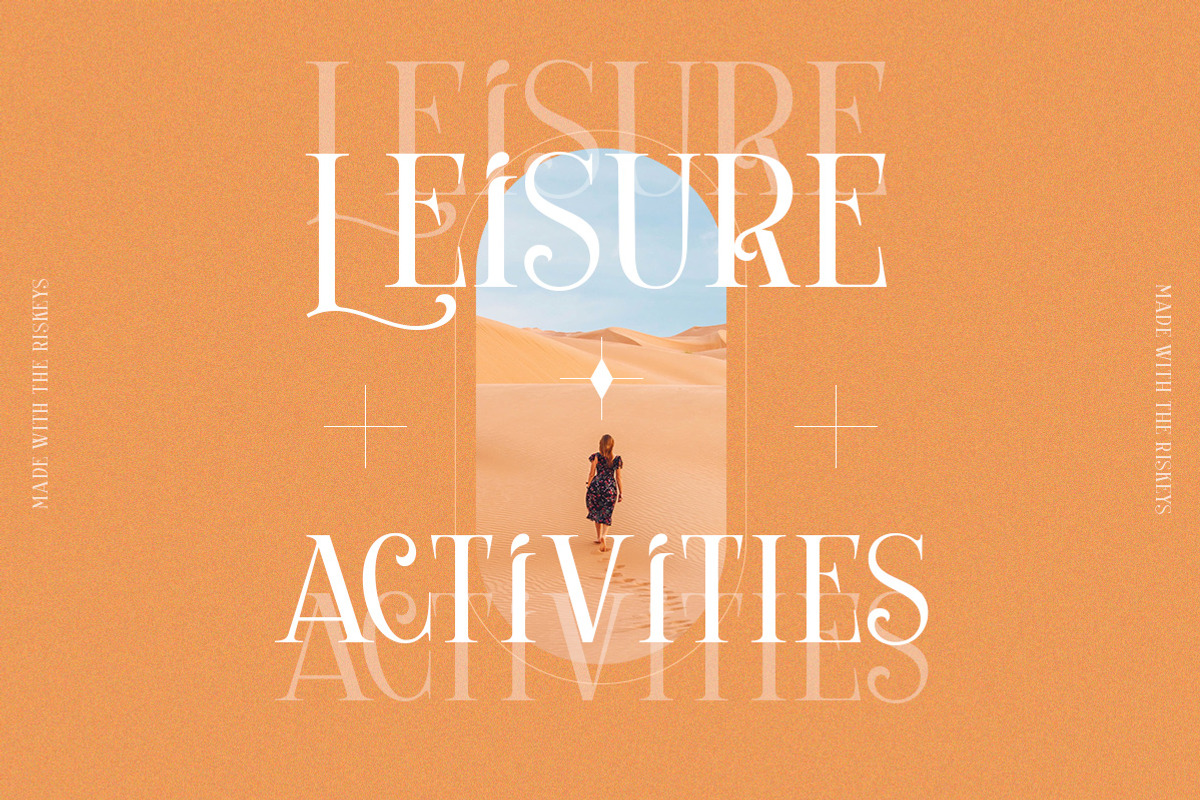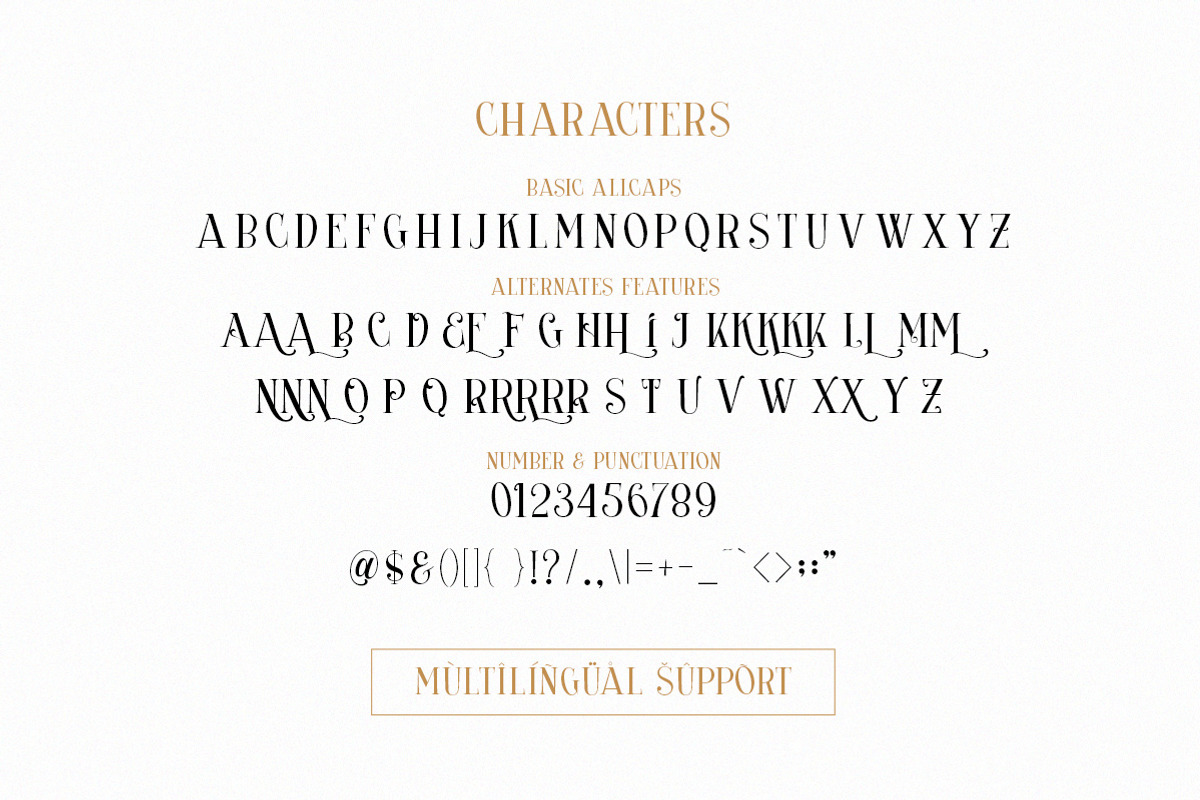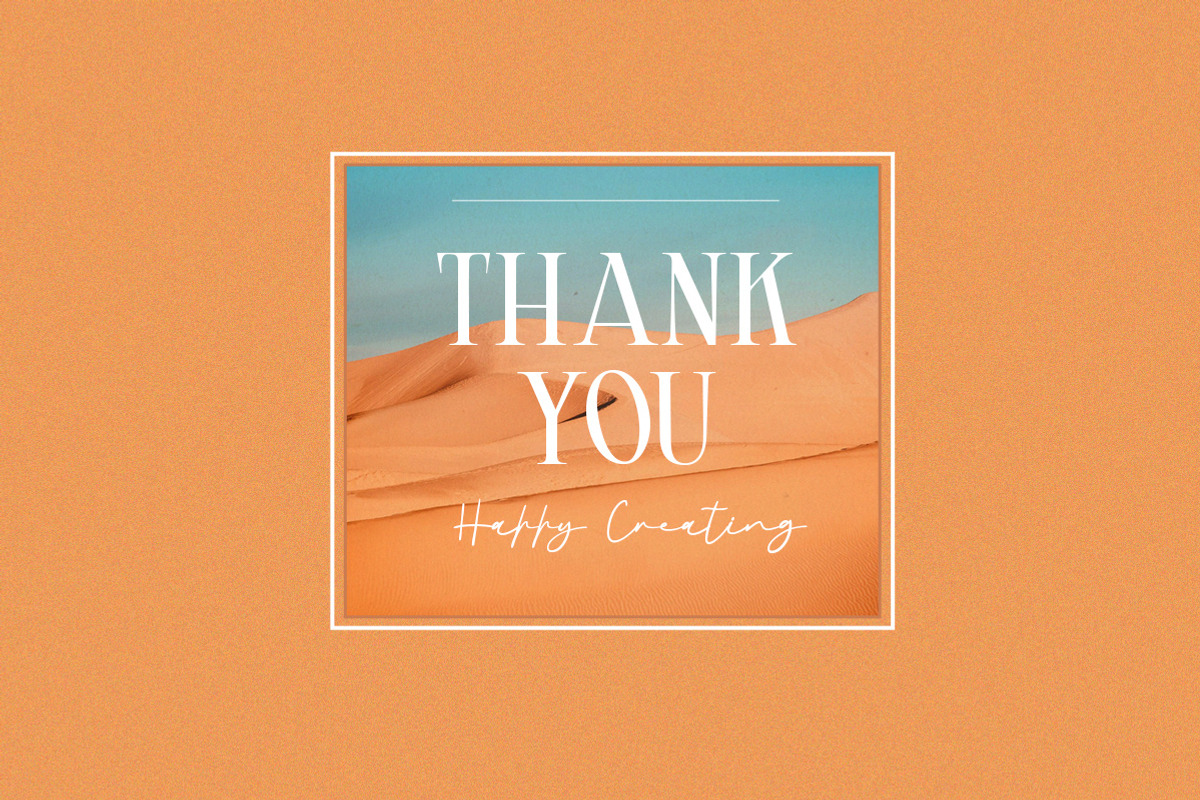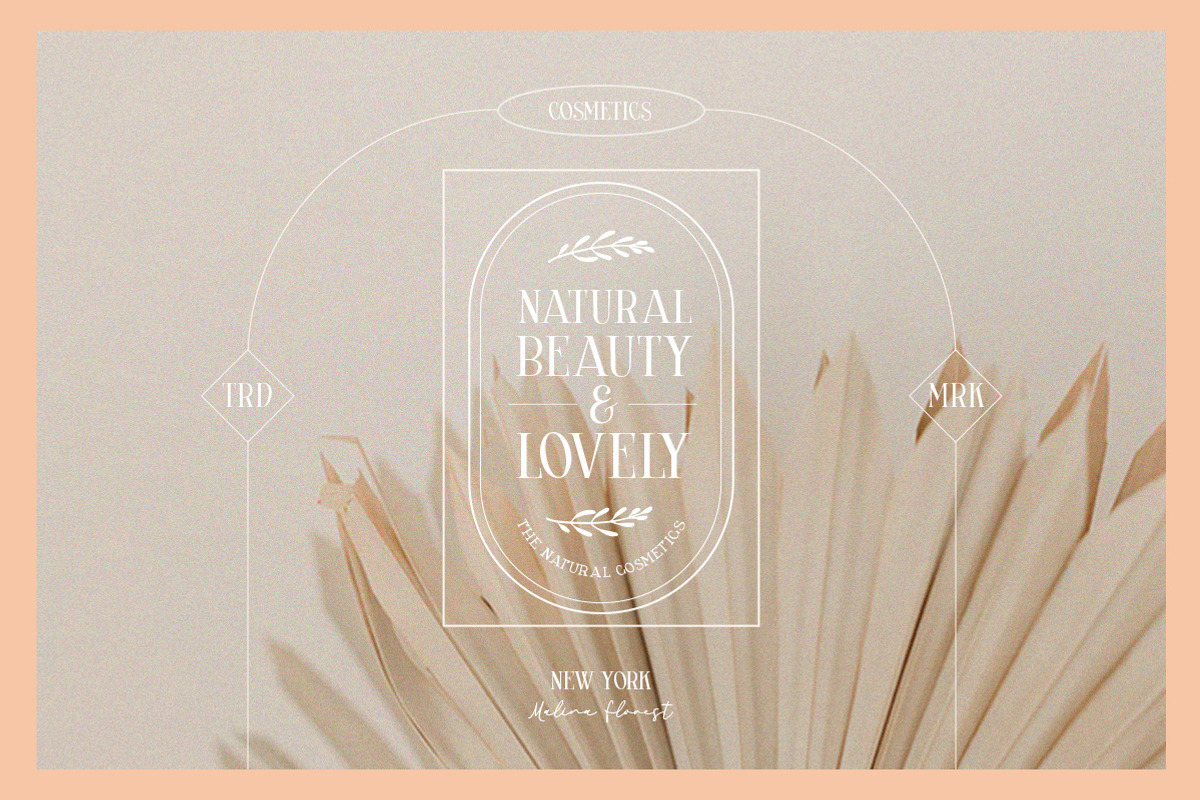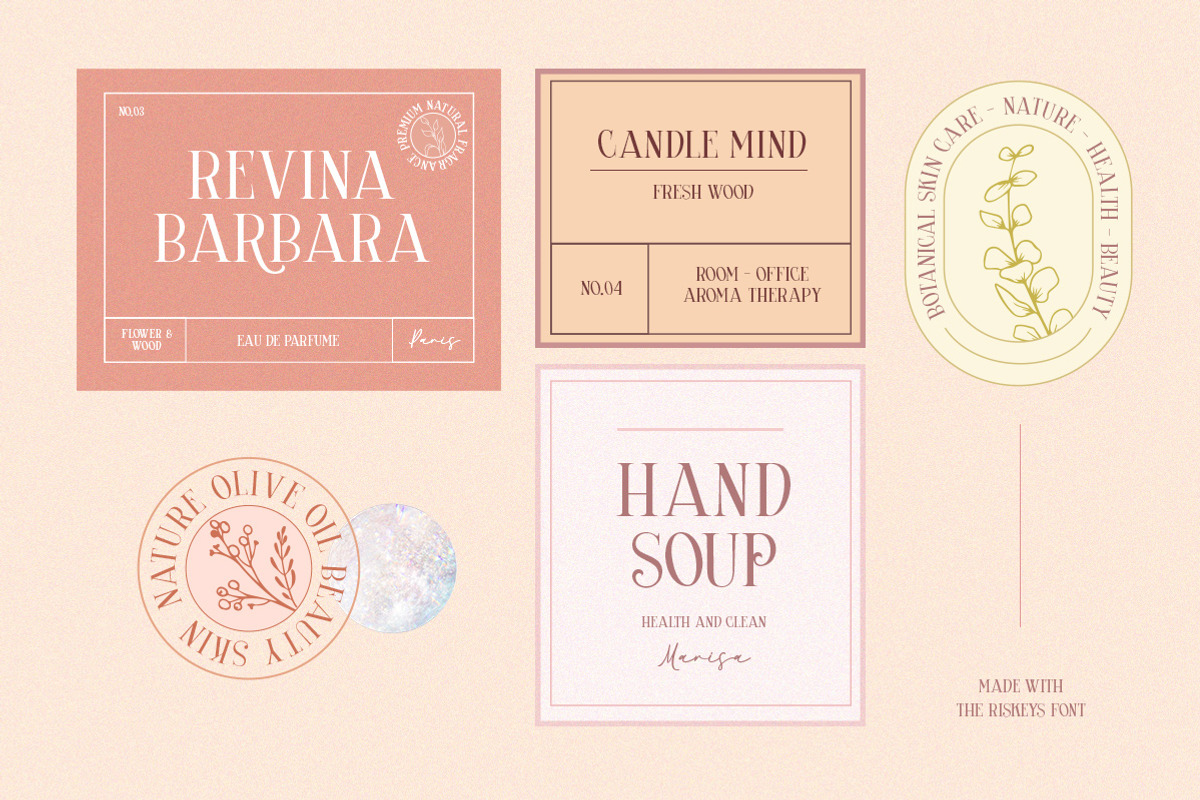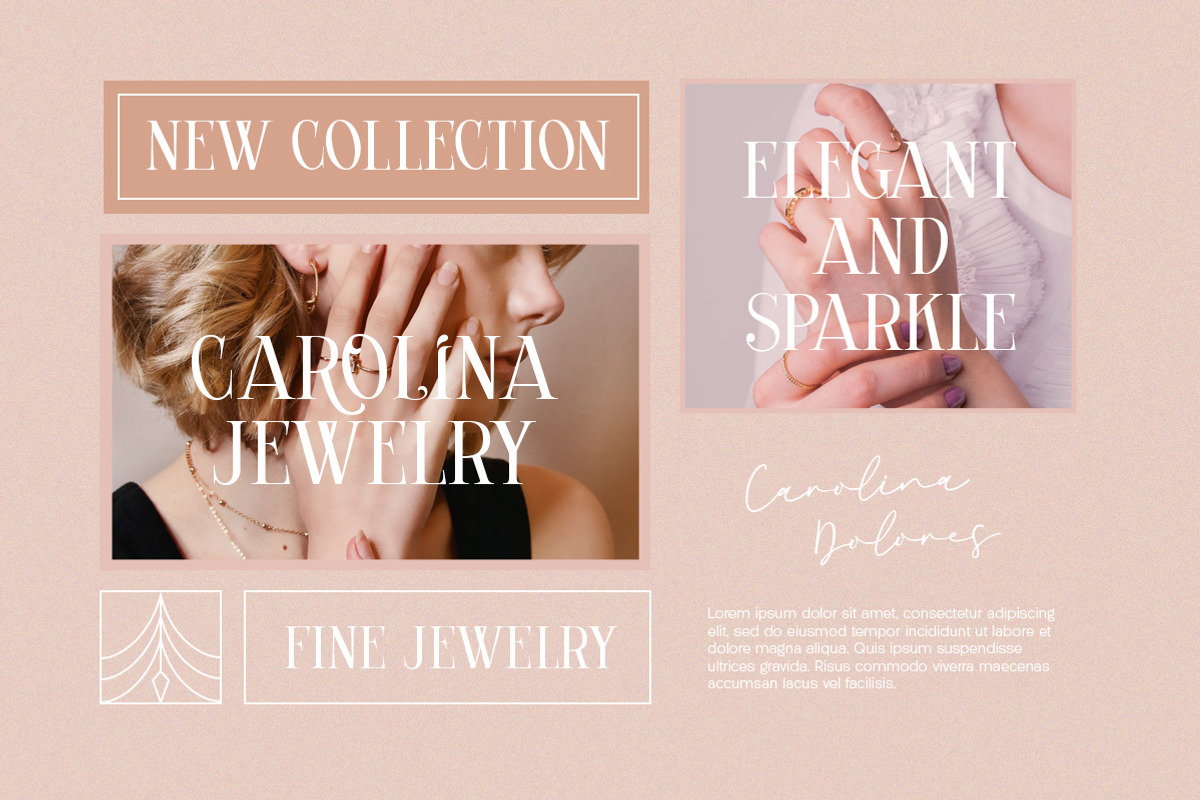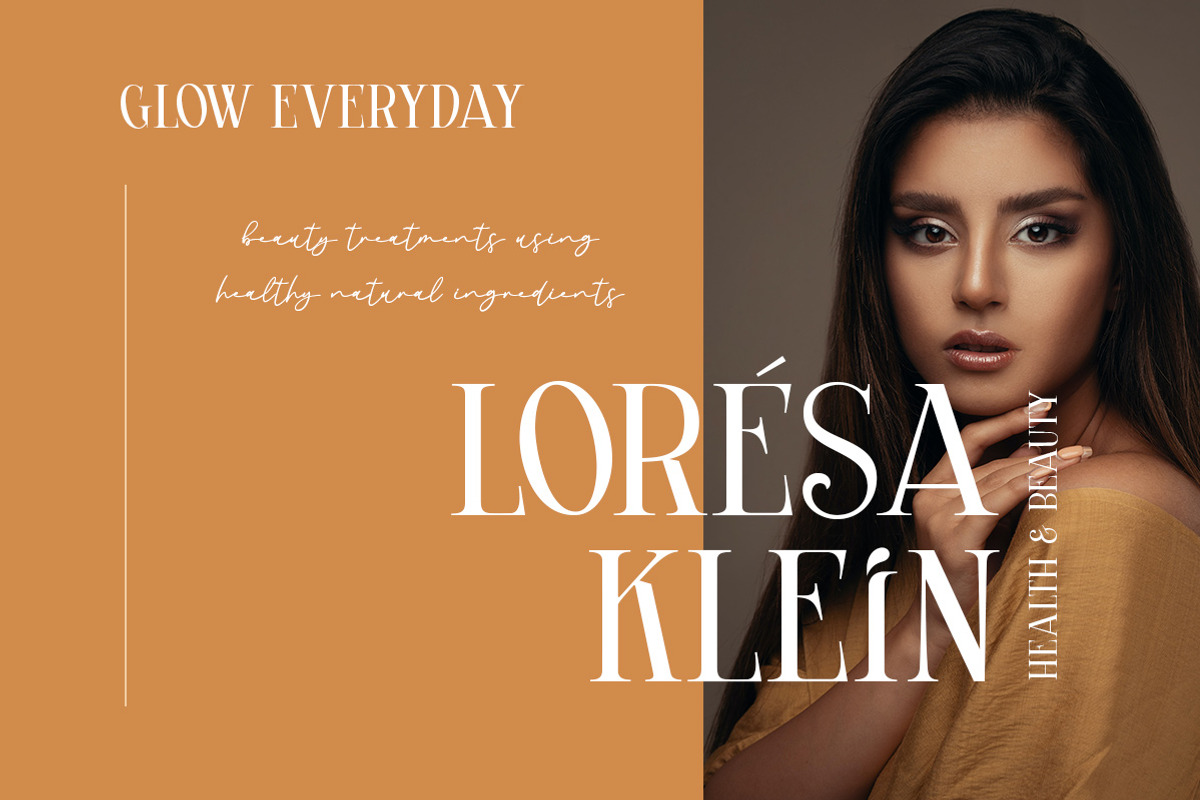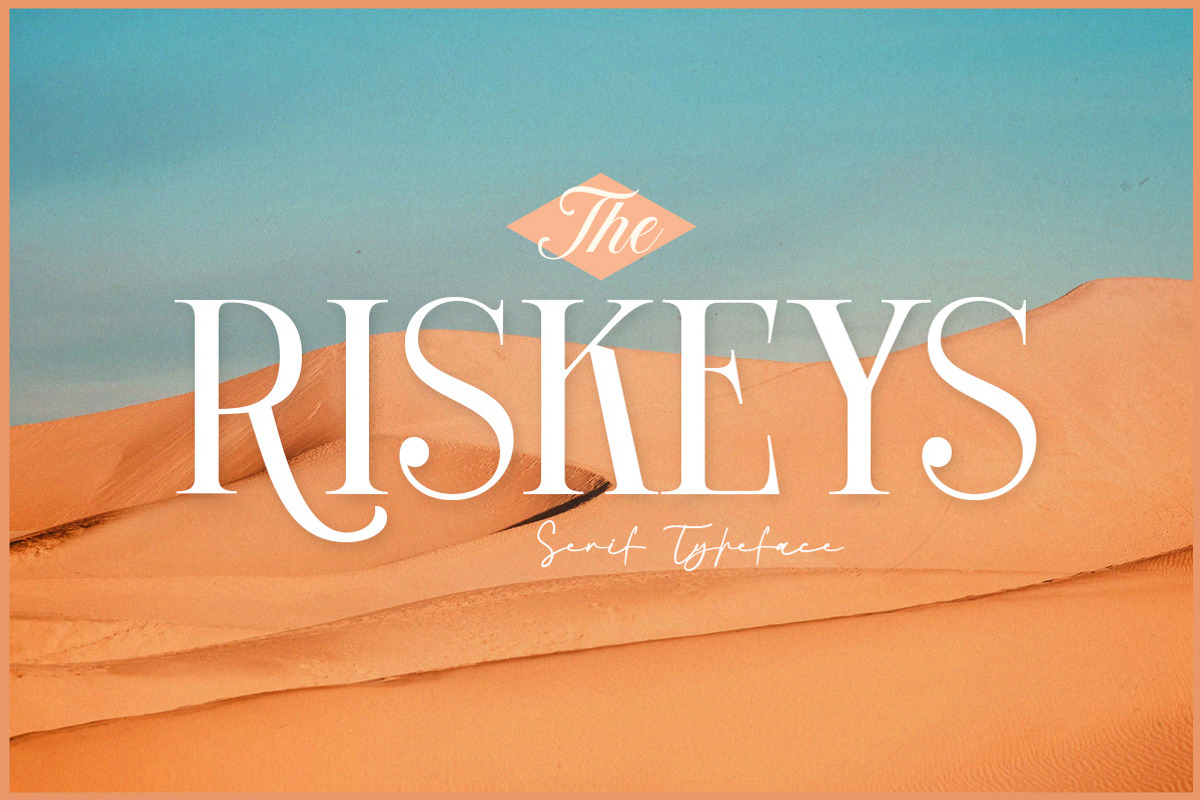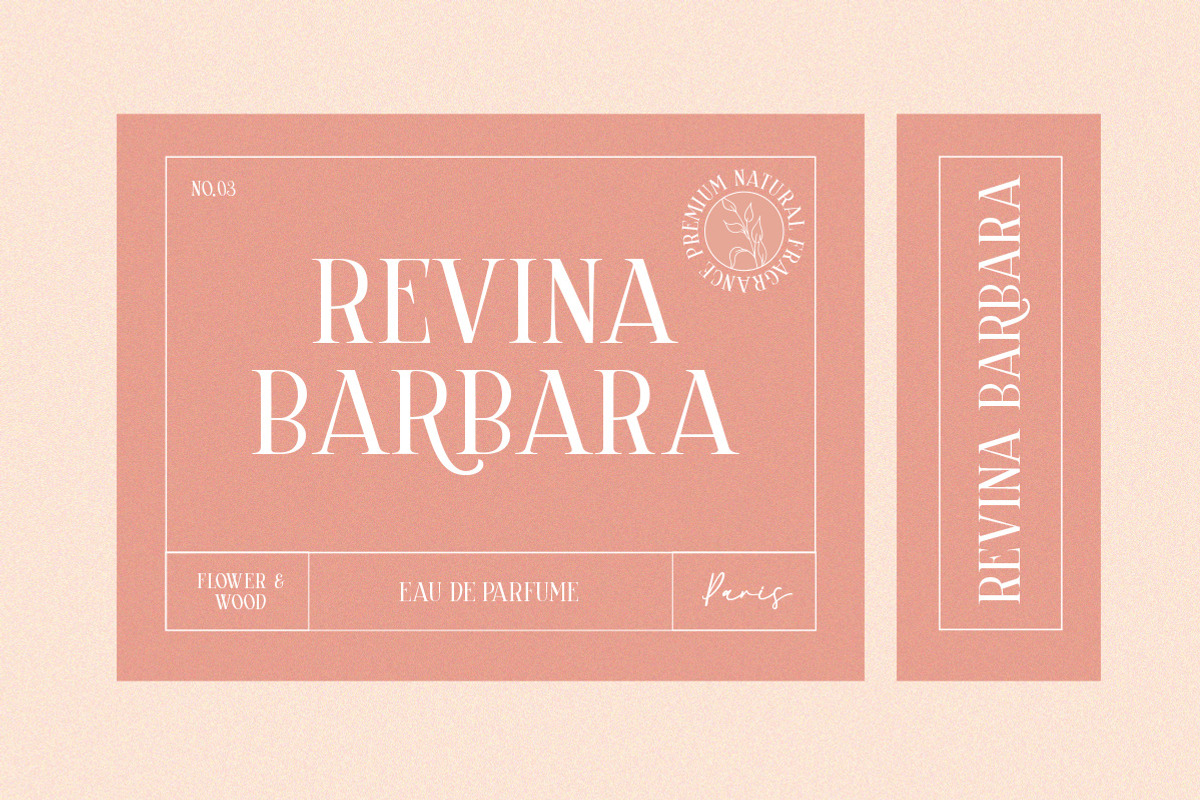
Riskeys - Serif Typeface
The Riskeys is a stylish and sophisticated modern serif font. This typeface has can be used for modern theme or vintage looks with ligatures & alternates. Very suitable for logo, headline, tittle, and the other various formal forms such as invitations, labels, logos, magazines, books, greeting / wedding cards, packaging, fashion, make up, stationery, novels, labels or any type of advertising purpose.
- uppercase and lowercase
- alternates